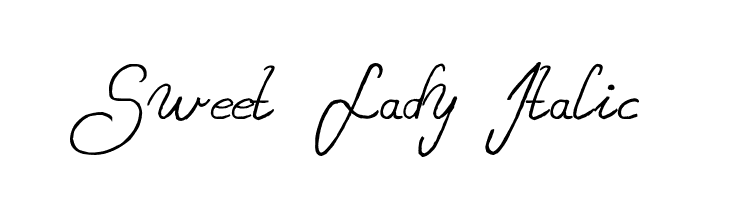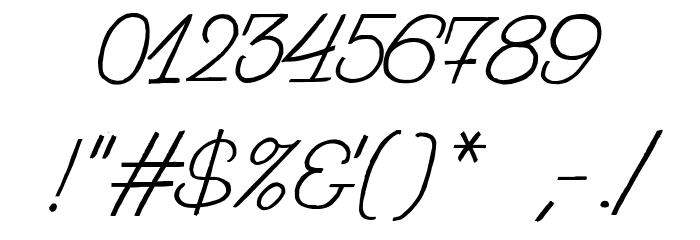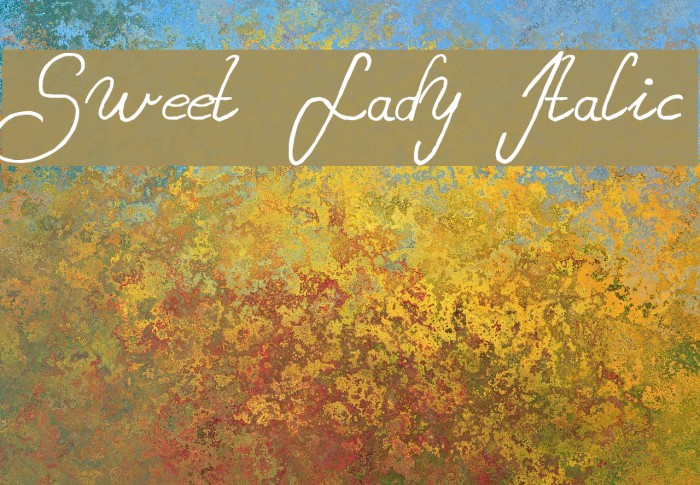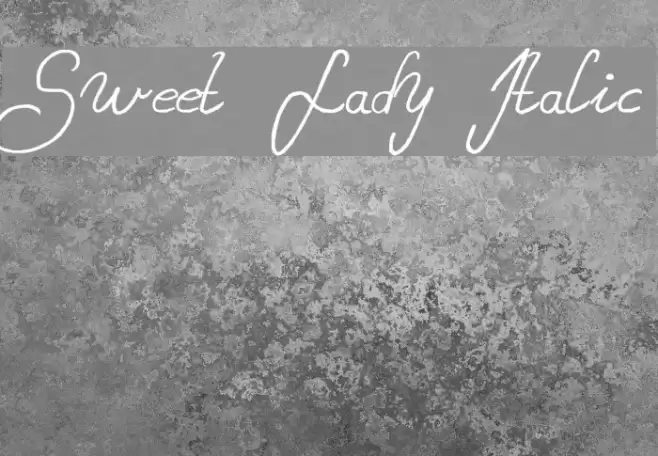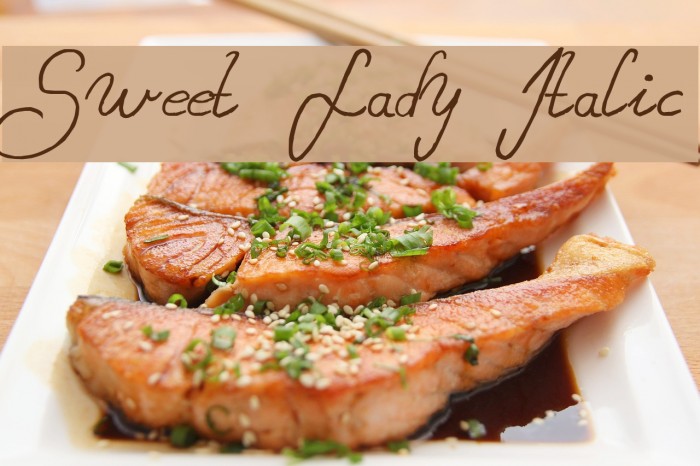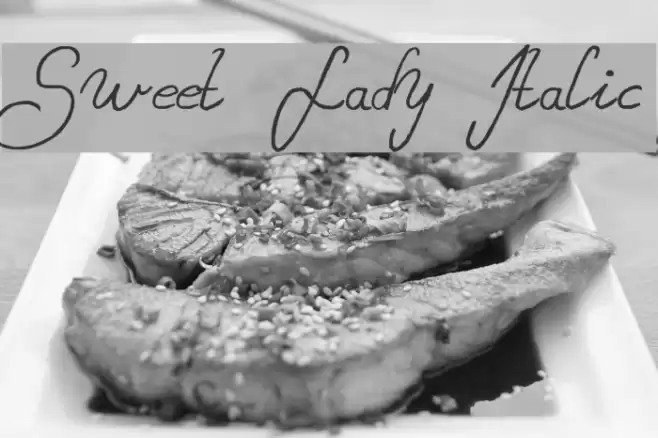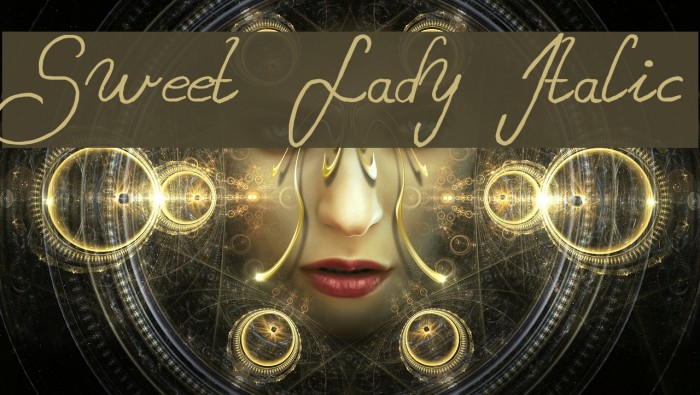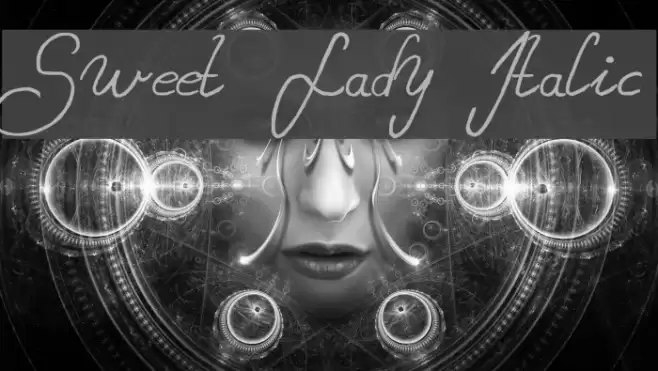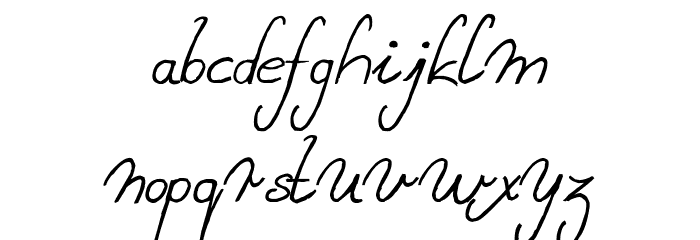
Sweet Lady Italic Font
This font exudes elegance and sophistication with its flowing, cursive style. The letters are interconnected, creating a seamless and graceful appearance. The uppercase letters are tall and slightly slanted, while the lowercase letters maintain a consistent flow, enhancing readability. The numerals are distinct yet harmonize with the overall script style. Special characters are crafted with the same attention to detail, ensuring they blend seamlessly with the alphabet. This font is ideal for projects that require a touch of elegance and personal flair.
An elegant, flowing cursive font with interconnected letters.
• Proposed Projects: Ideal for wedding invitations, greeting cards, personal branding, and elegant signage.
• Category: Script
• Bold: No
• Italic: Yes
• Weight: Regular
• Width: Normal
• Character Spacing: Tight
• Contrast: Medium
• Overall Style: Elegant
• Use Case: Logos, Invitations, Decorative text